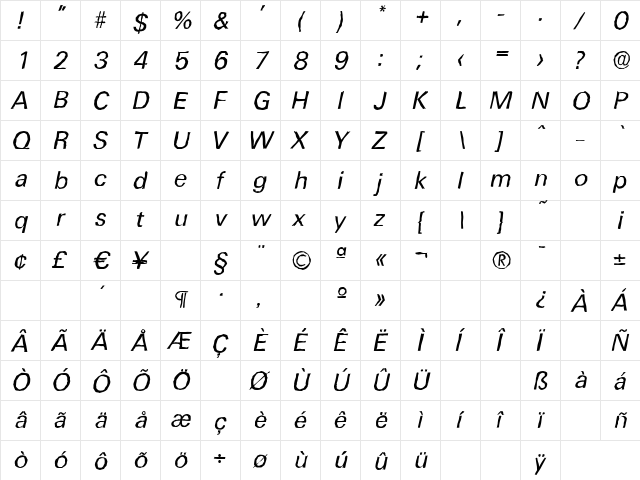
UltimateAntique Italic
Design Context for UltimateAntique Typeface
UltimateAntique has the warm character of retro typography — evoking diners, record sleeves, and the golden age of print advertising. The slanted form adds forward momentum and visual energy.
Perfect for vintage-inspired branding, retro packaging, nostalgia campaigns, and period-accurate editorial design.
Font Pairing: Combine UltimateAntique with a simple slab or neutral sans — period-accurate companions reinforce the vintage feel without competing for attention.
Pro Tip: Use UltimateAntique for headlines and pull quotes rather than body copy — its personality is best appreciated in short, focused bursts.